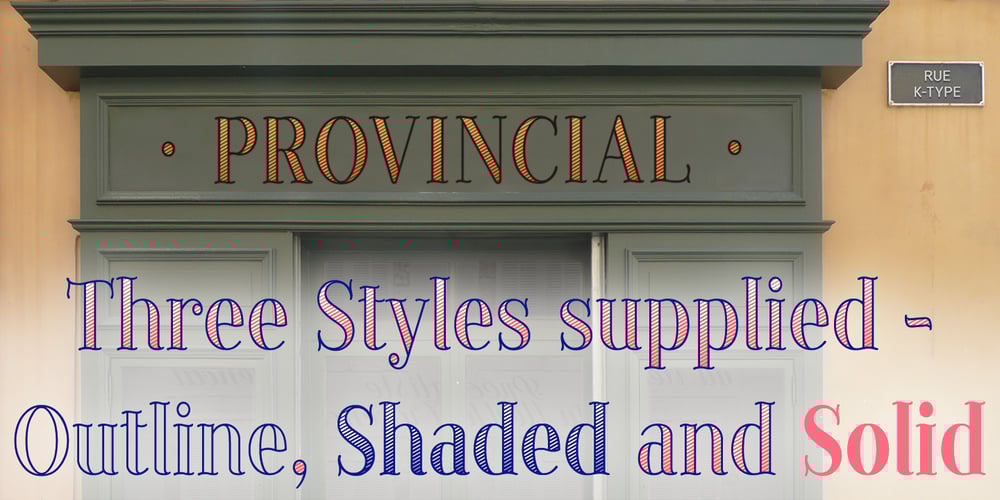
Provincial Font Family was designed by Keith Bates and published by K-Type. Provincial contains 3 styles and family package options. PROVINCIAL is a relaxed, flowing, wavy serif, unsophisticated with a slightly hand drawn feel, yet elegant enough for formal uses. The three font family comprises Outline, Shaded and Solid, with matching spacing and kerning, so can be overlaid to create bicolor and multicolor typography.